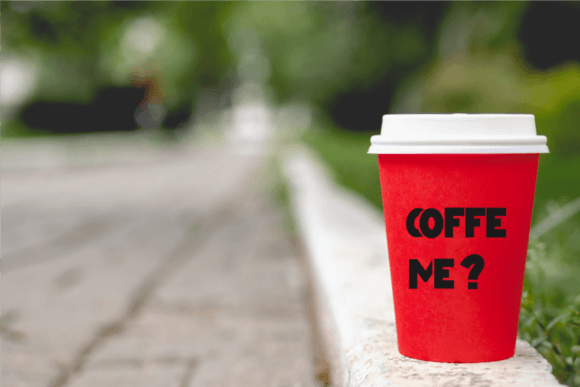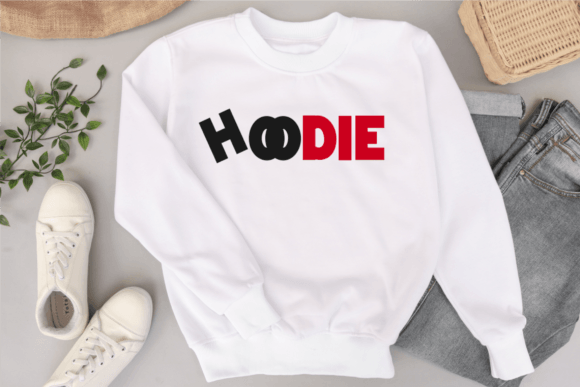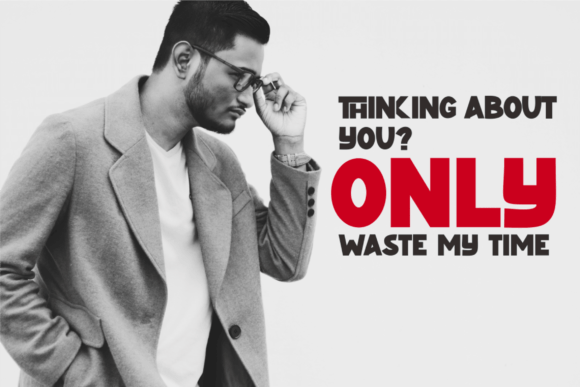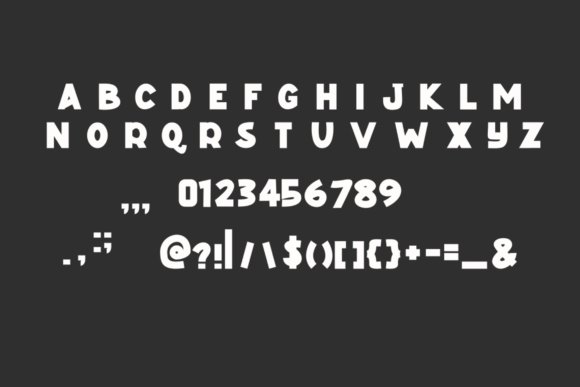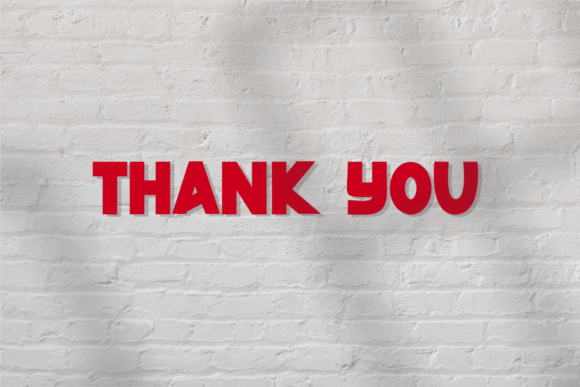
Introduction to Rallixet Font
Have you ever stared at a blank page, trying to bring a creative project to life, only to feel stuck and uninspired? That’s exactly how many designers feel when they’re searching for the perfect font to elevate their work. But what if I told you that there’s a game-changing font that can make all the difference? Say hello to the Rallixet Font, a bold and authentic display font that’s about to become your new design BFF.
As a valuable design resource, the Rallixet Font is perfect for any branding project, from logo design to t-shirt printing and beyond. With its high-quality design and transparent background, this font is sure to stand out in a wide range of contexts. Whether you’re a seasoned designer or just starting out, the Rallixet Font is a must-have in your design toolkit. And the best part? It’s available for free download, making it accessible to designers of all levels.
Key Features of Rallixet Font
- Rallixet Font is designed to be highly customizable, allowing users to adjust font sizes, colors, and styles to suit their specific design needs.
- This font is perfect for designers who want to add a touch of elegance and sophistication to their creative projects, from logos and branding to digital products and marketing materials.
Honest Review: Rallixet Font
As a designer, I’m always on the lookout for high-quality design resources to elevate my creative projects. Recently, I came across the Rallixet Font, and I was excited to put it to the test.
Here are some of the things that work well: ✨ Great for titles and headings, the Rallixet Font has a unique and modern aesthetic that’s perfect for any design project. The font is highly legible, even at small sizes, making it ideal for use on business cards, posters, and other marketing materials. Additionally, the transparent background makes it easy to layer over images or other design elements.
- High-quality design with a modern aesthetic
- Legible even at small sizes
However, I did encounter a few limitations: ⚠️ The Rallixet Font is not ideal for body text, as it can be a bit difficult to read in large blocks of text. Additionally, the font may not be suitable for use in situations where a more traditional or serif font is required.
Overall, I was impressed with the Rallixet Font, and I would definitely recommend it as a design resource for creative projects that require a modern and eye-catching look.
Rallixet Font is ideal for creative projects that require a high-quality, modern font. It’s perfect for logos, branding materials, and presentations. The font’s transparent background makes it easy to use on any background.
To get the most out of Rallixet Font, experiment with different font sizes, colors, and combinations. Use it to create eye-catching headings and titles, or to add a touch of sophistication to your design.